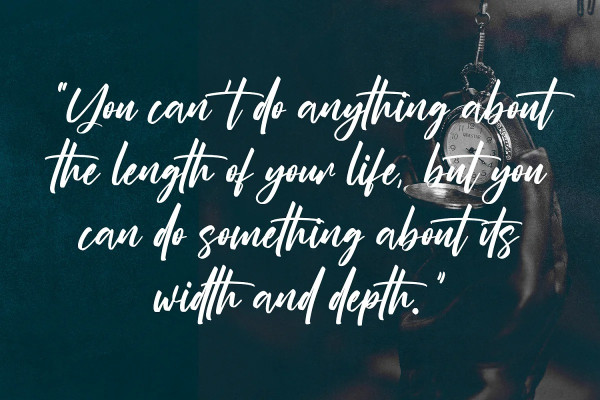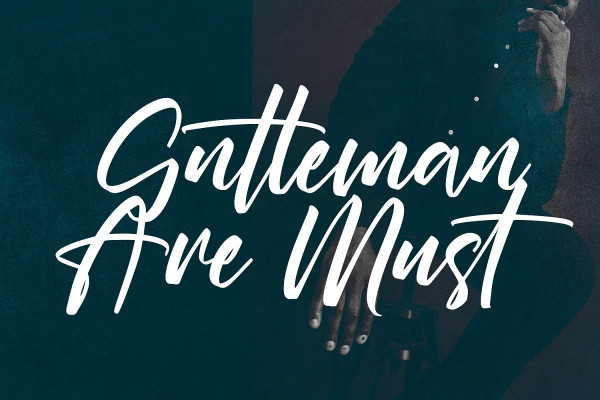
Edward Peters Font
Edward Peters Font is a stunning modern signature script font. With high contrast felt-tip stroke, fun character with a bit of ligatures and alternates. To give you an extra creative work. Edward Peters font support multilingual more than 100+ language. This font is good for logo design, Social media, Movie Titles, Books Titles, a short text even a long text letter and good for your secondary text font with sans or serif. Make a stunning work with EdwardPeters font.